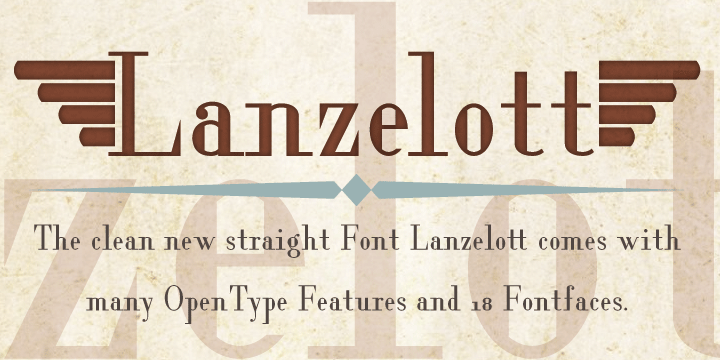
Lanzelott Font is ideal for medieval fantasy games, Arthurian legend books, castle tour marketing, medieval restaurant themes, knight tournament promotions, fantasy novel covers, historical reenactment events, medieval wedding invitations, chivalric order materials, and legendary projects that celebrate the noble romance and heroic valor of medieval knighthood with courtly elegance and timeless chivalric honor.
What makes Lanzelott Font so exciting is its magnificent embodiment of knightly honor through majestically crafted letterforms that capture the noble spirit and romantic heroism of Arthurian legend. This typeface radiates the essence of chivalric ideals and courtly romance, featuring stately proportions and heraldic details that suggest castle banners while maintaining excellent readability for contemporary medieval-themed applications requiring both authenticity and legendary grandeur.
Lanzelott Font family encompasses multiple chivalric variations: Regular, Bold, Light, Noble, Heroic, Chivalric, Royal, and Legendary versions. Each style maintains the font's inherent knightly character while offering different levels of medieval grandeur and romantic appeal, providing designers with comprehensive tools for creating authentic Arthurian aesthetics that resonate with audiences seeking noble adventure and chivalric romance experiences.
The legendary appeal of Lanzelott Font Free Download makes it exceptionally valuable for entertainment and tourism industries celebrating medieval heritage and Arthurian romance. This font successfully communicates noble honor and legendary heroism, making it perfect for venues and media that want to transport audiences to the golden age of knighthood and chivalric romance. Its majestic character works beautifully across both digital fantasy platforms and themed event materials, while its distinctive Arthurian-inspired design creates immediate recognition among audiences who appreciate medieval legends and seek heroic adventure experiences with courtly romance.